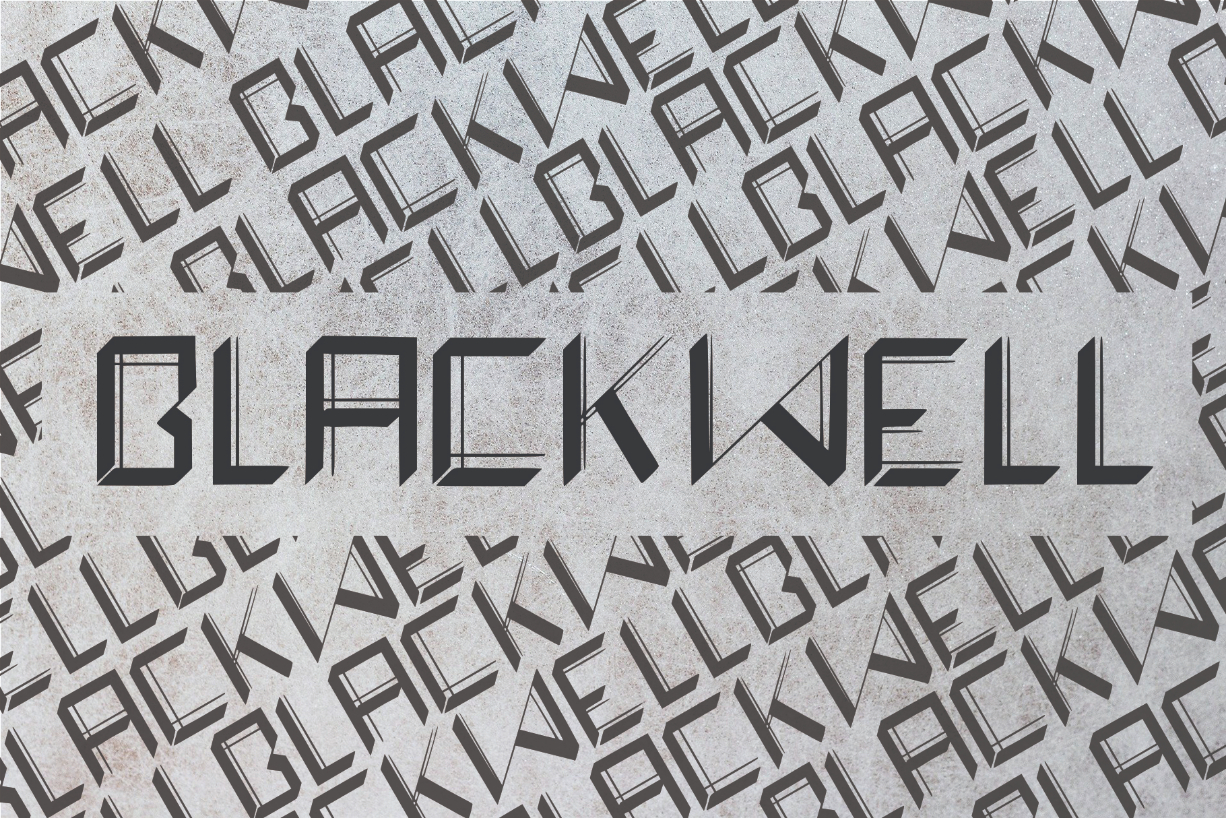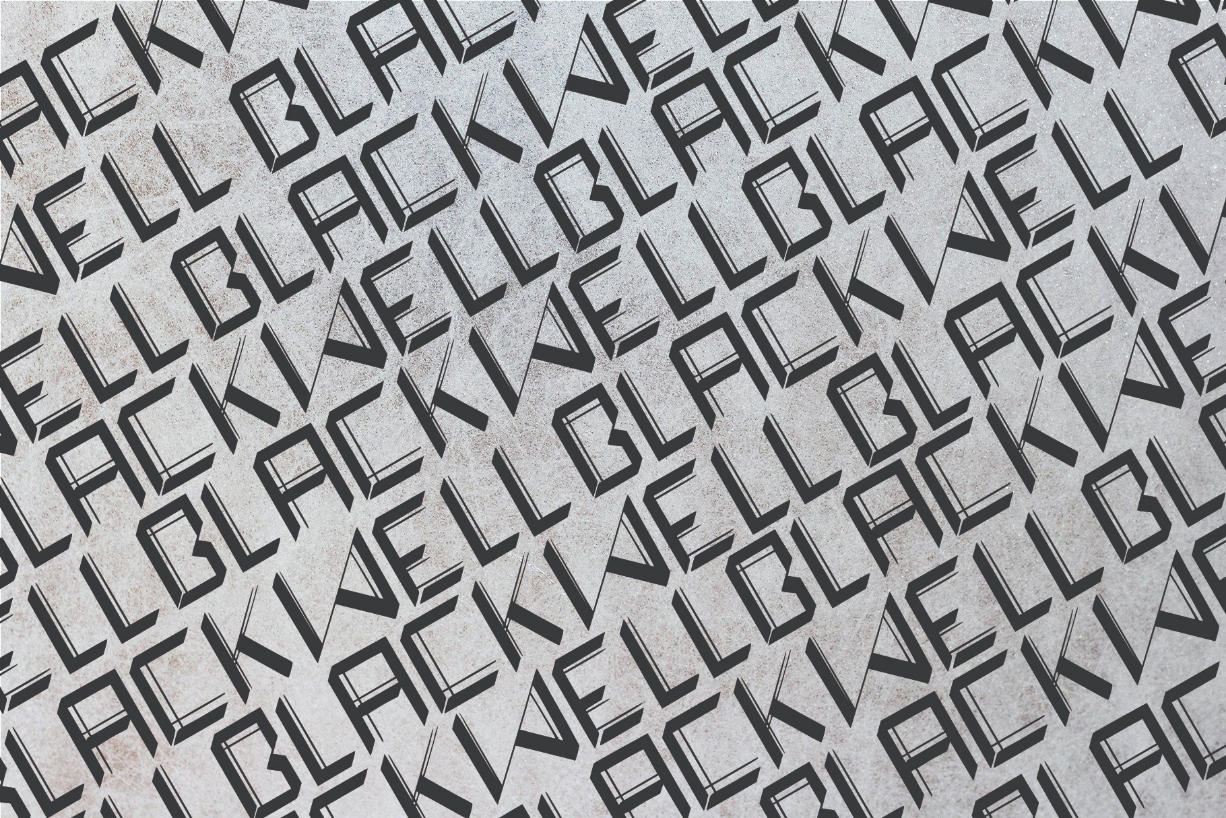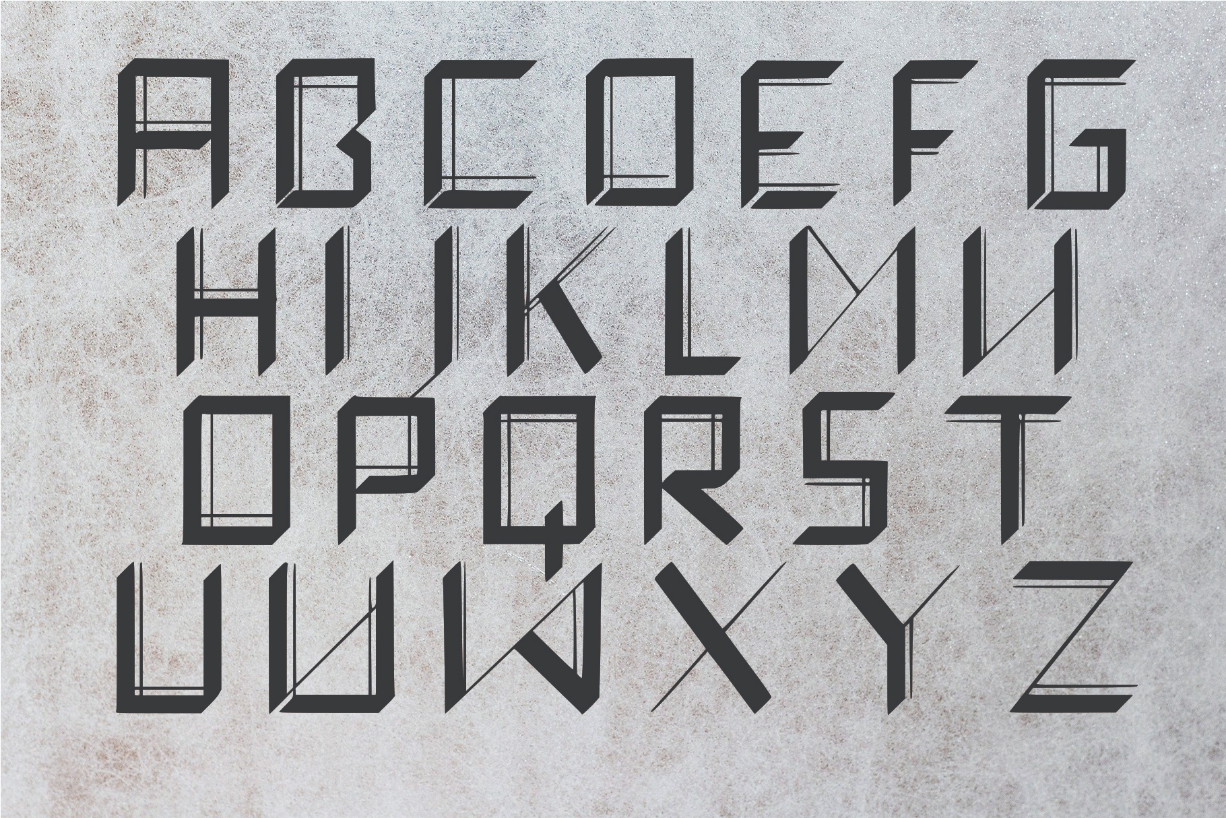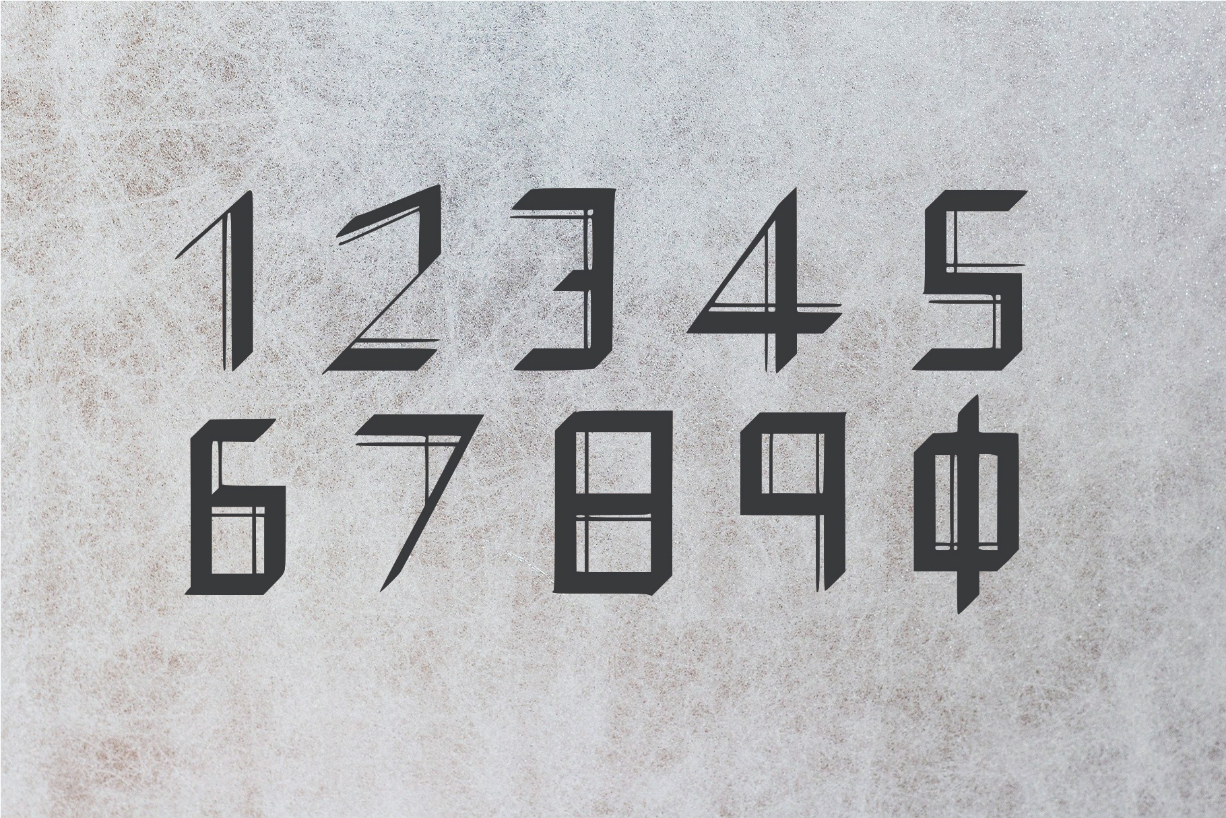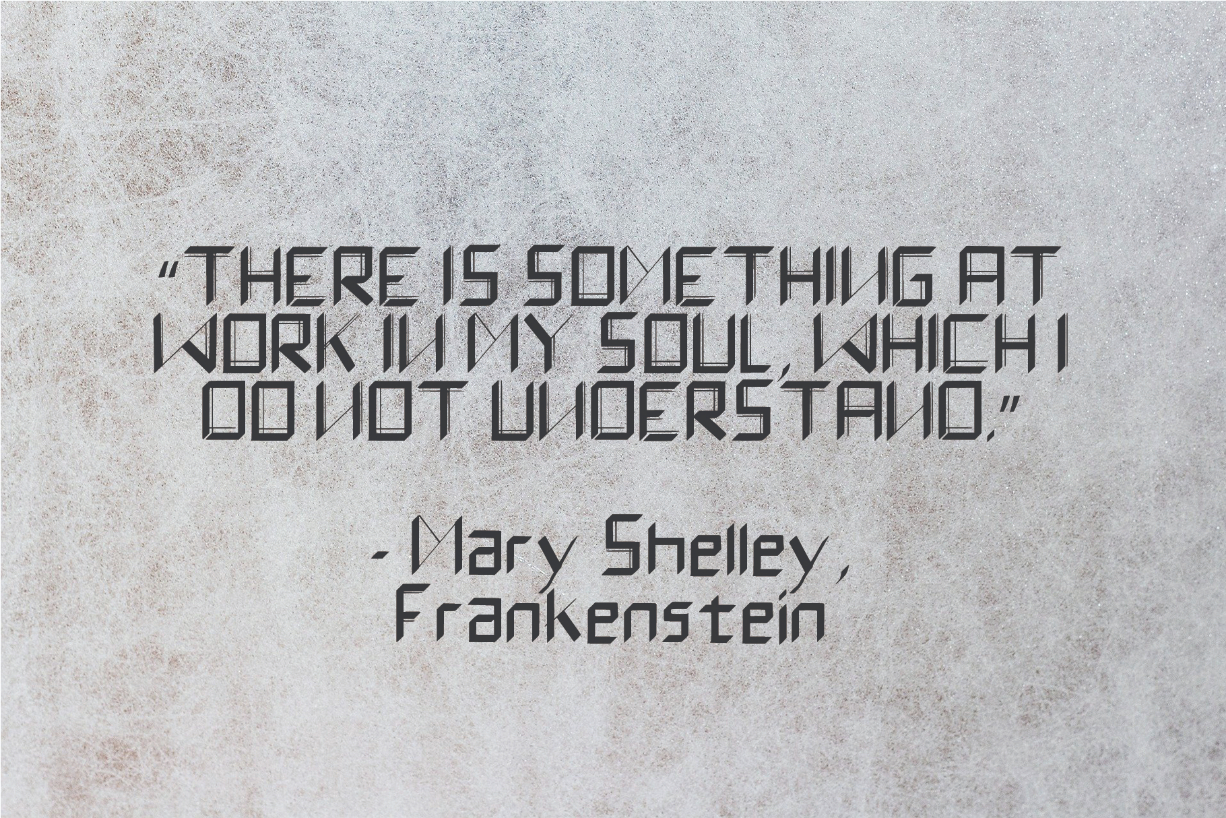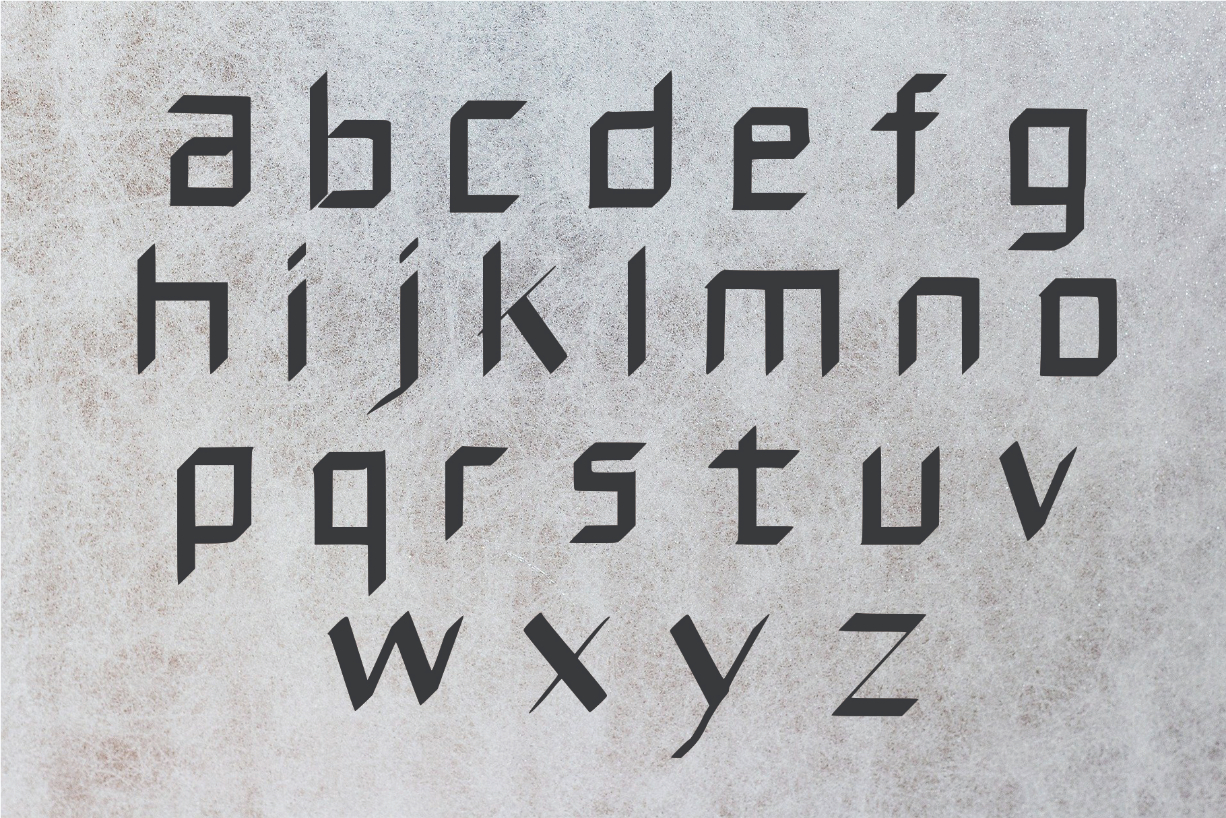
Blackwell Font
About Blackwell Font
Blackwell celebrates abstract shapes in all their eclectic beauty. This conceptual blackletter font will look truly outstanding in a wide range of contexts.